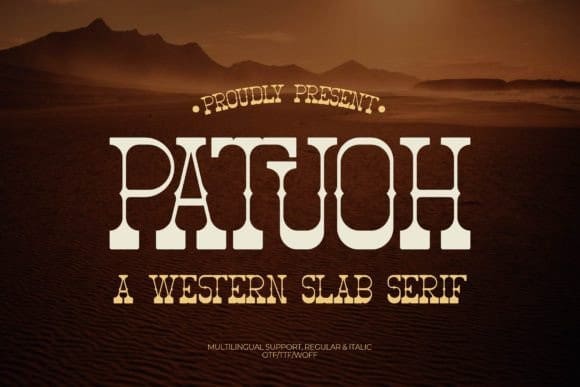
Patuoh Vintage Font
Patuoh Vintage Font is a typeface called a Western Slab Serif. It has a bold, sturdy look with thick lines and square edges. This style is often used in old Western movies and posters. Patuoh gives a strong, classic feel to any text, making it stand out clearly.